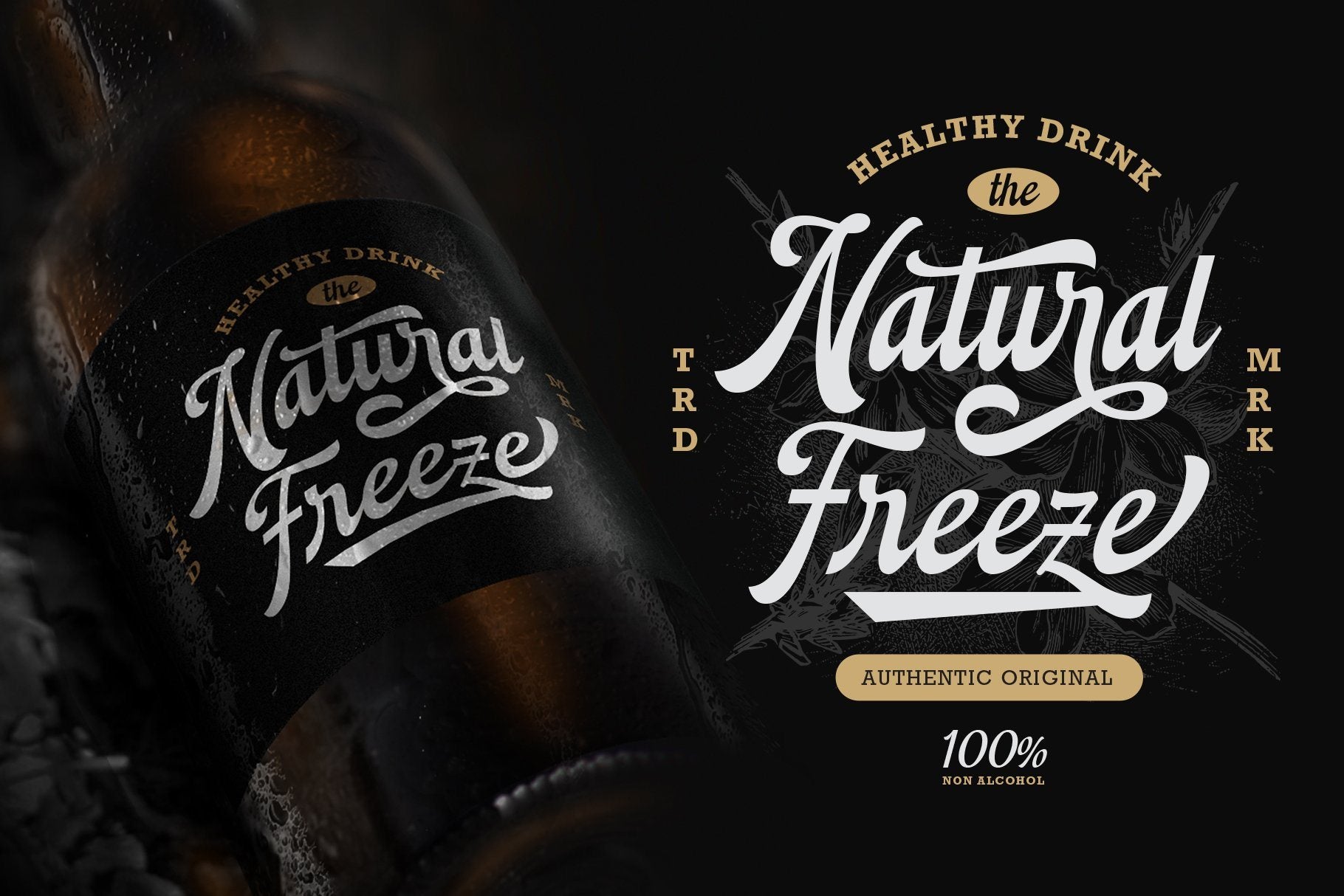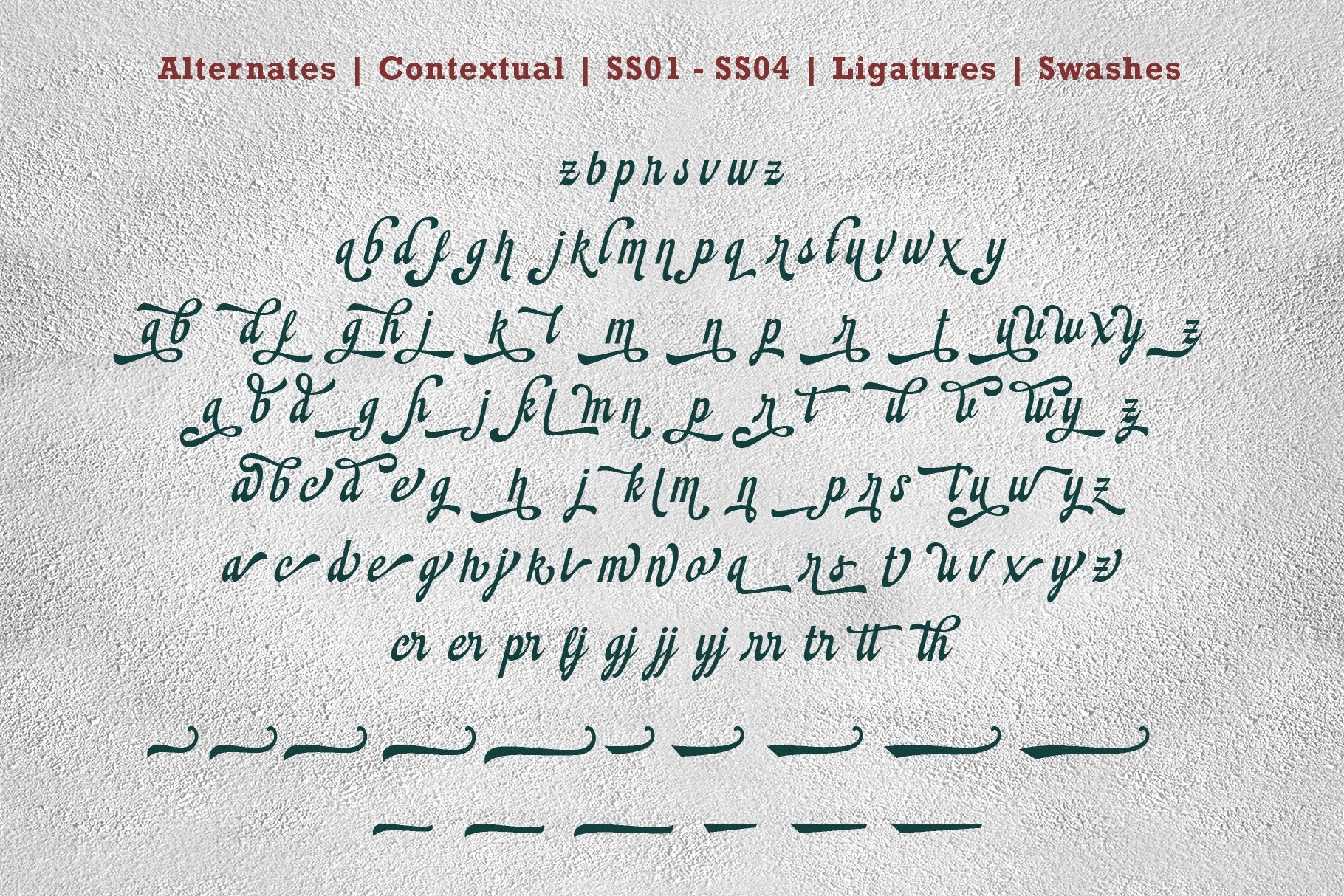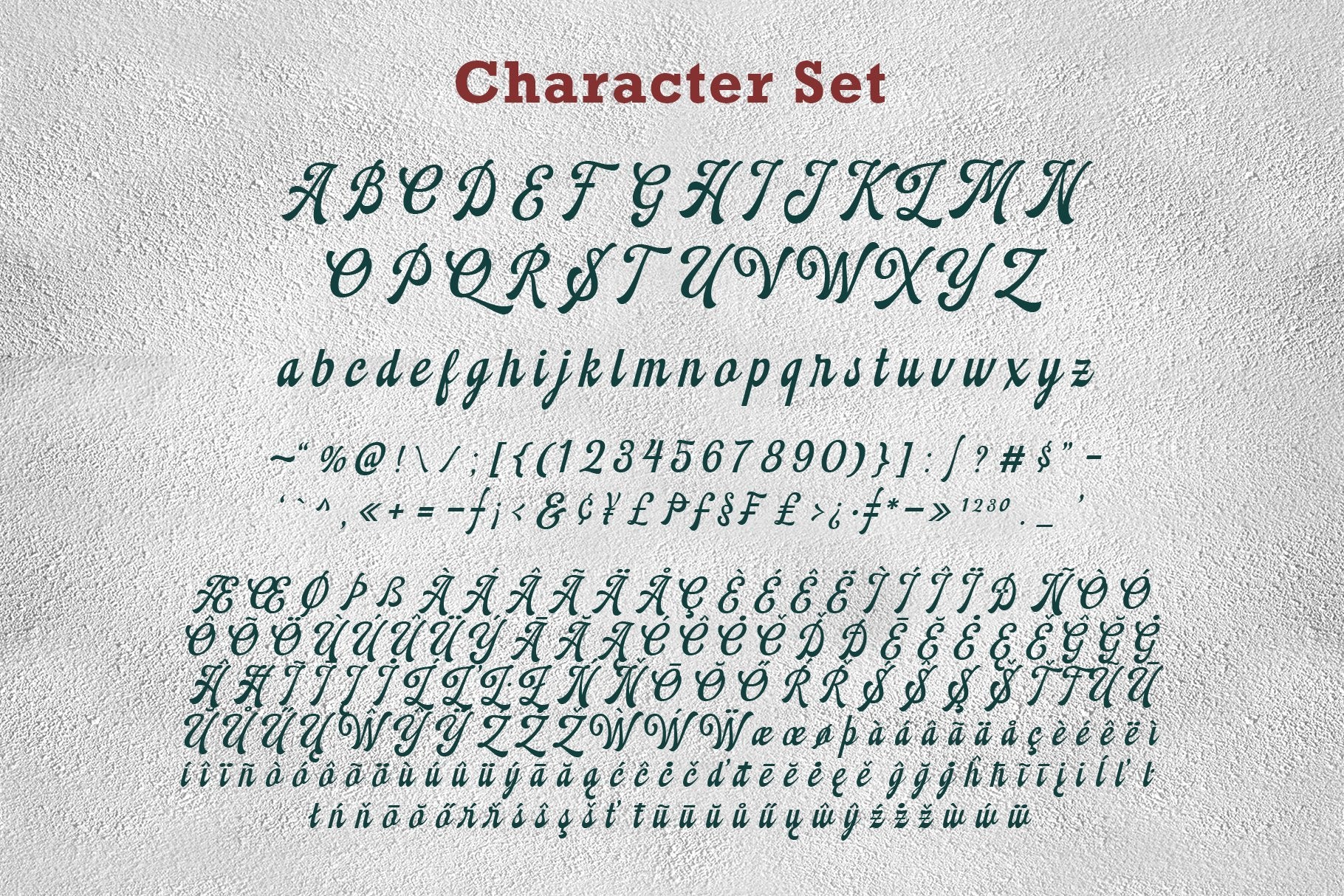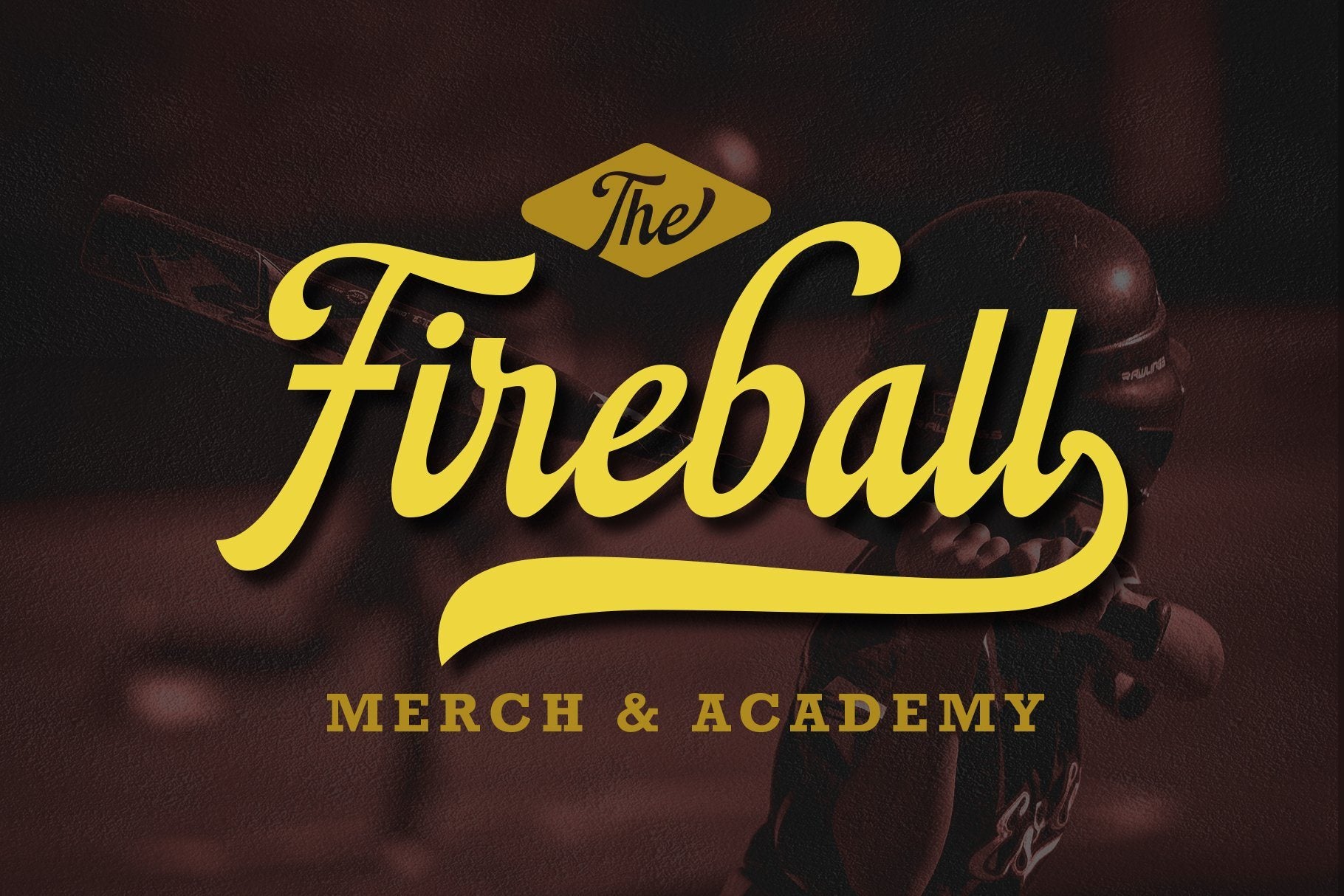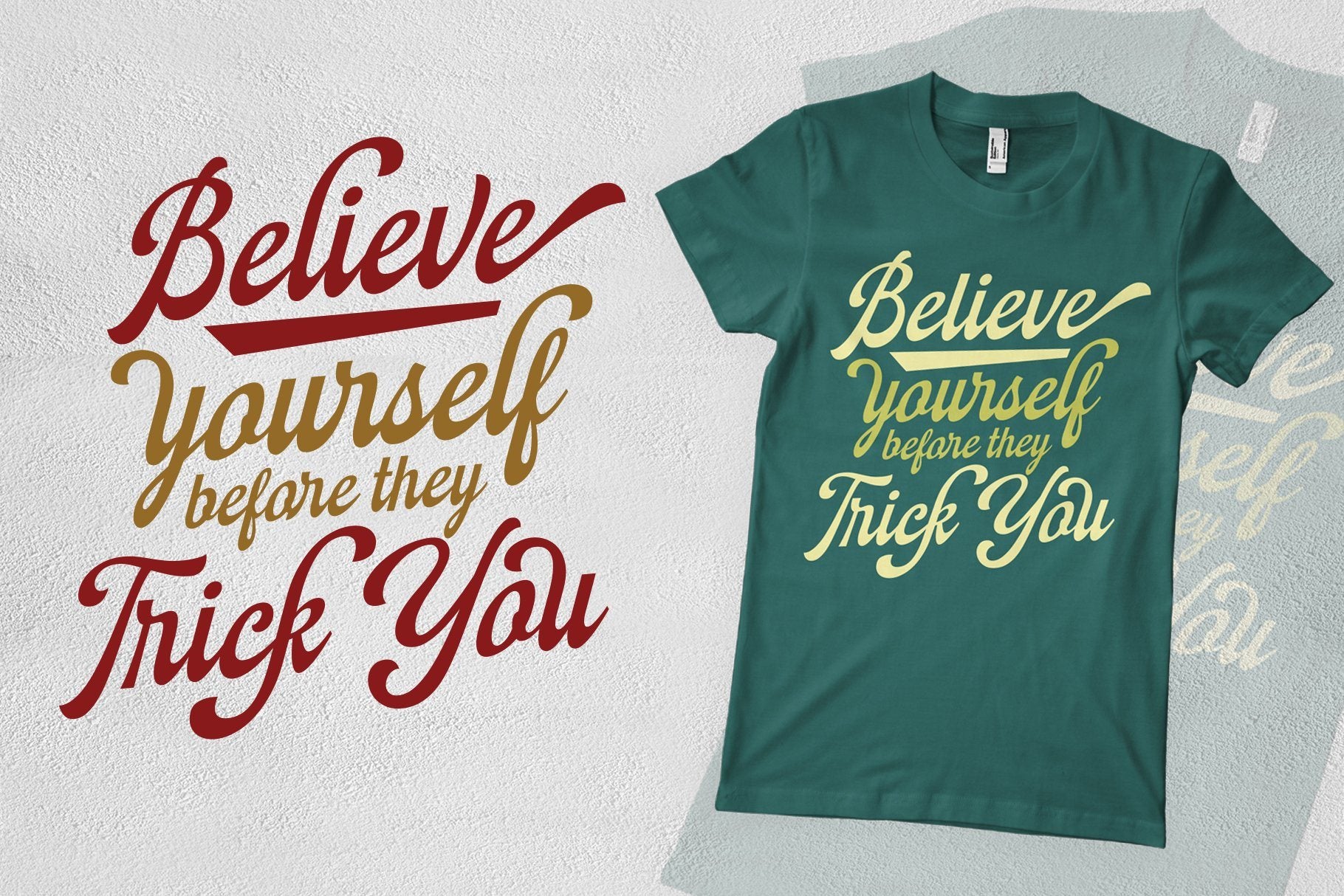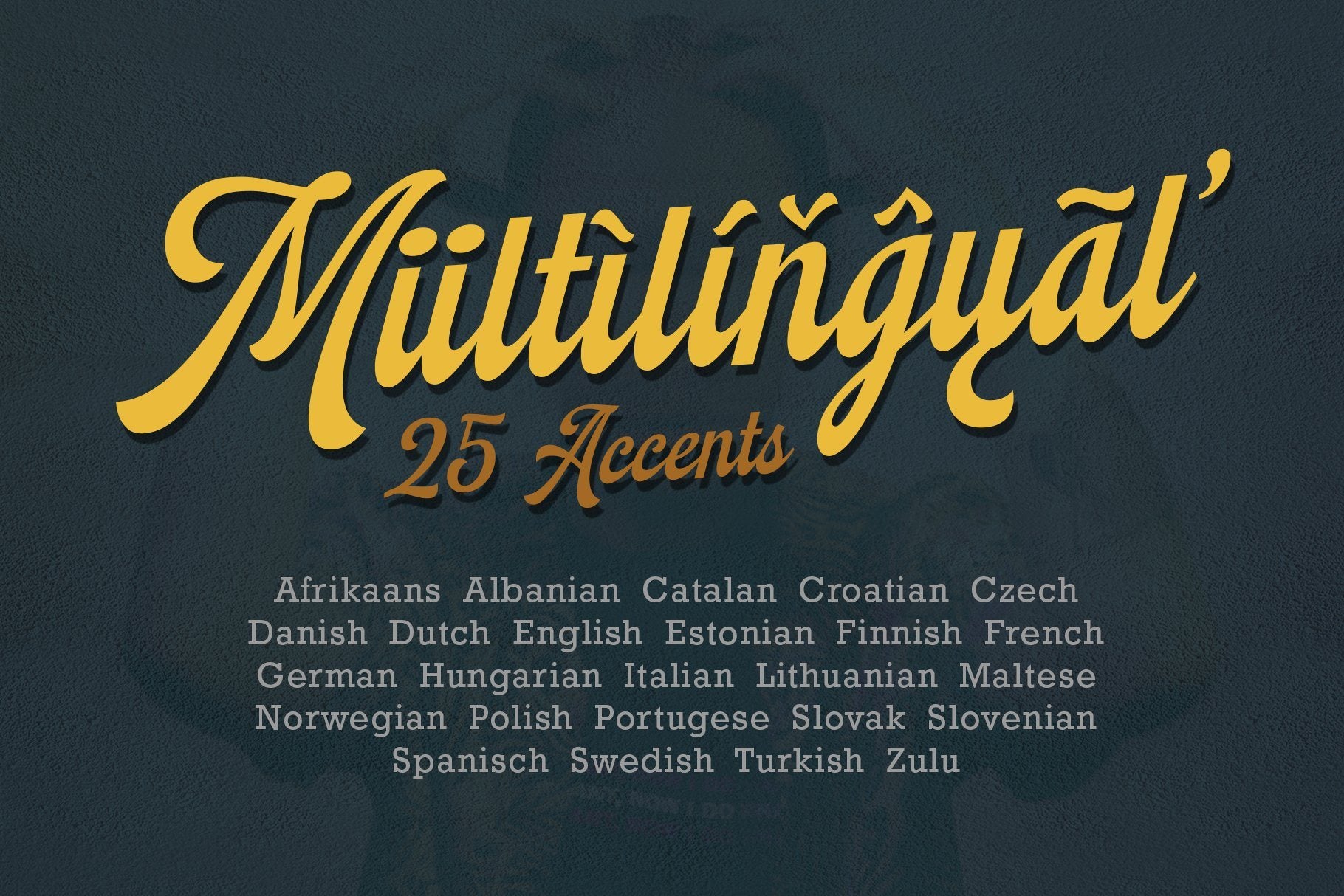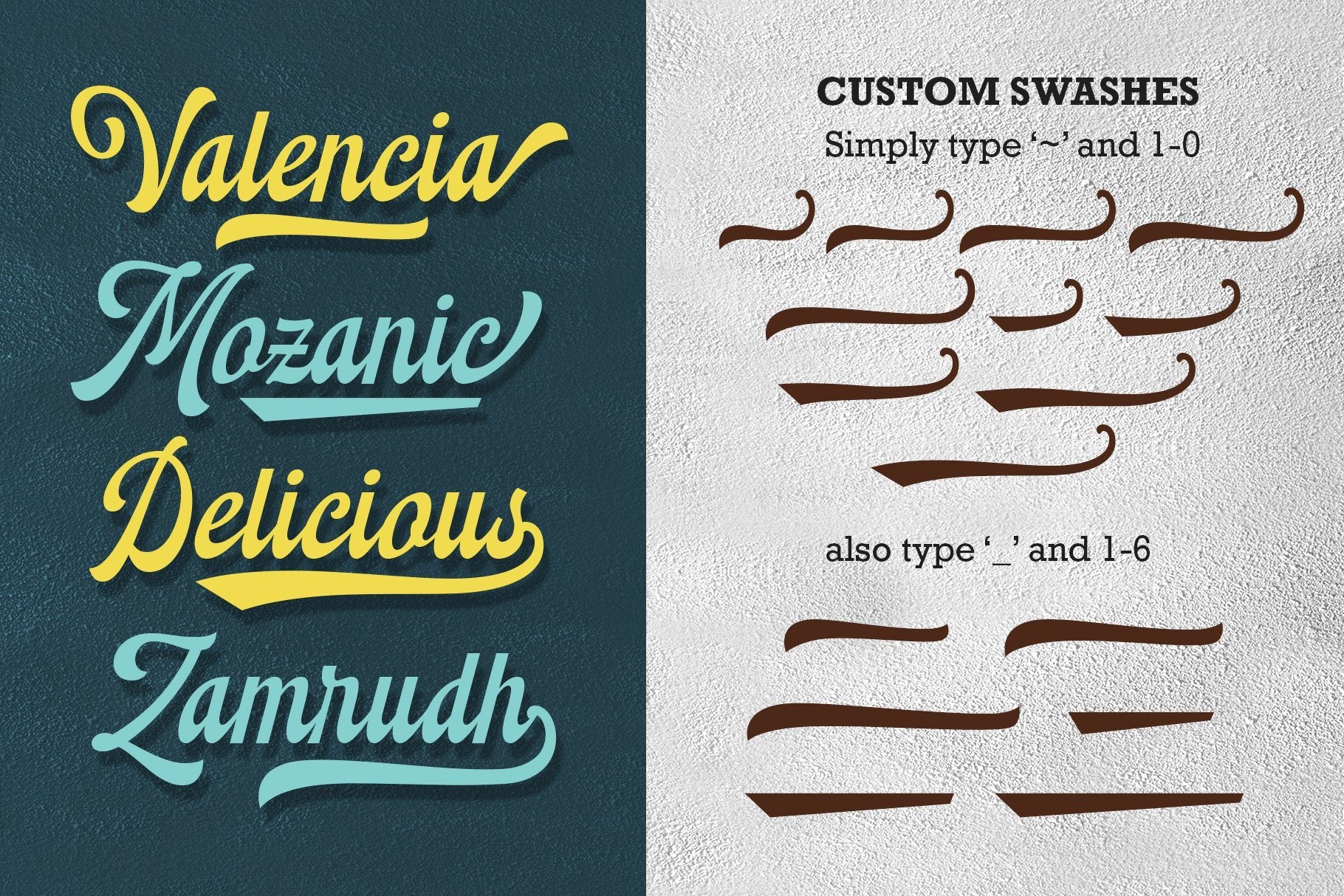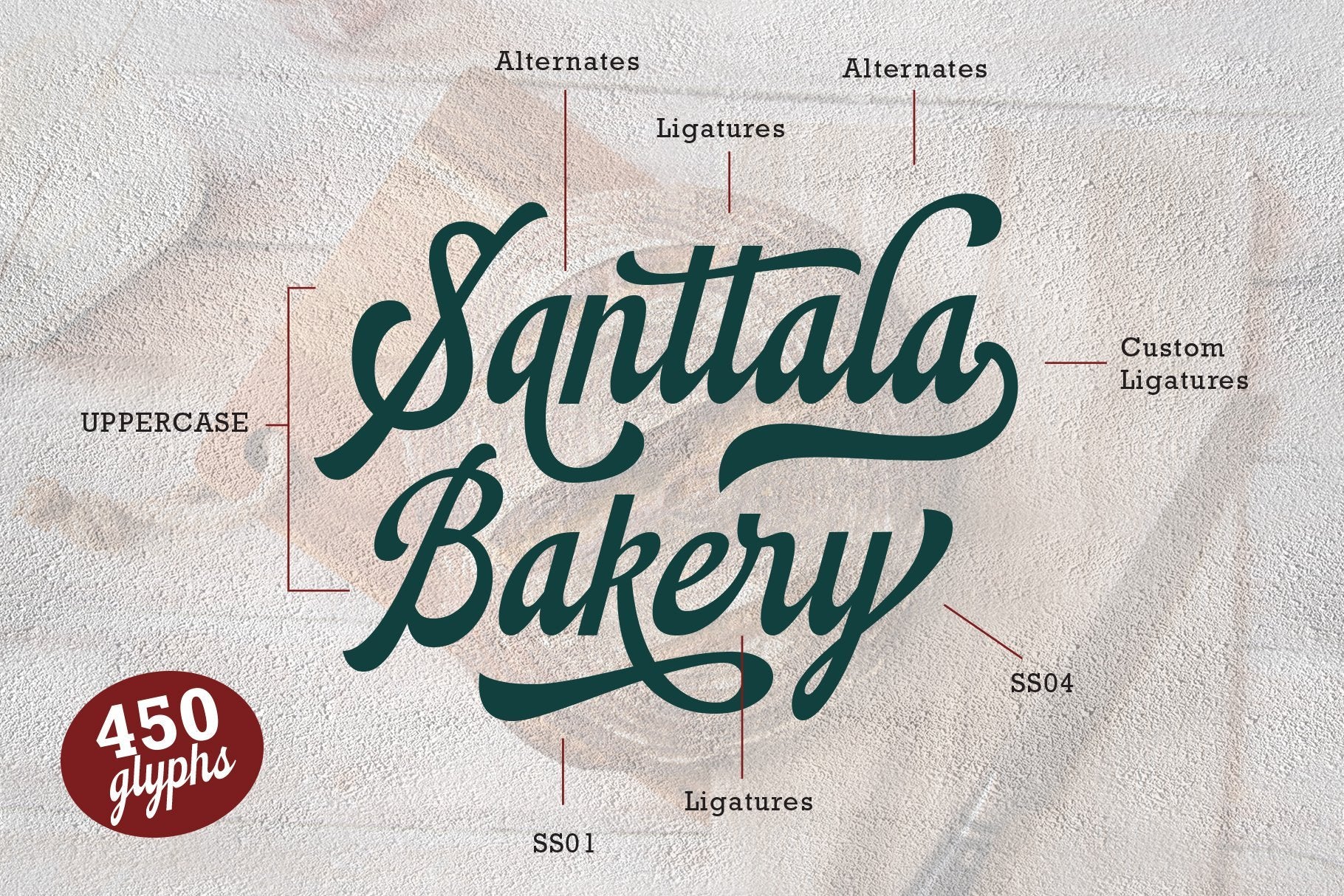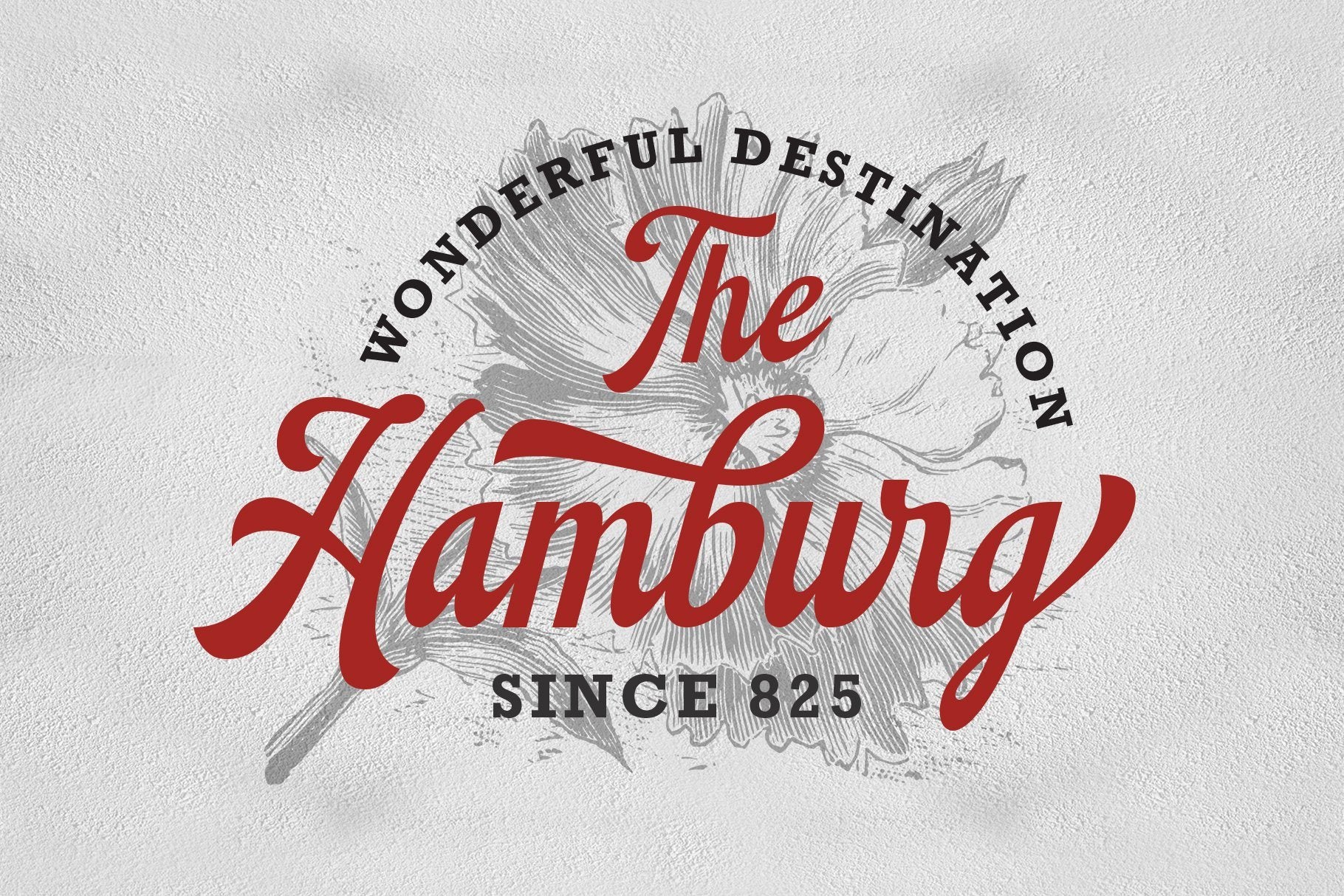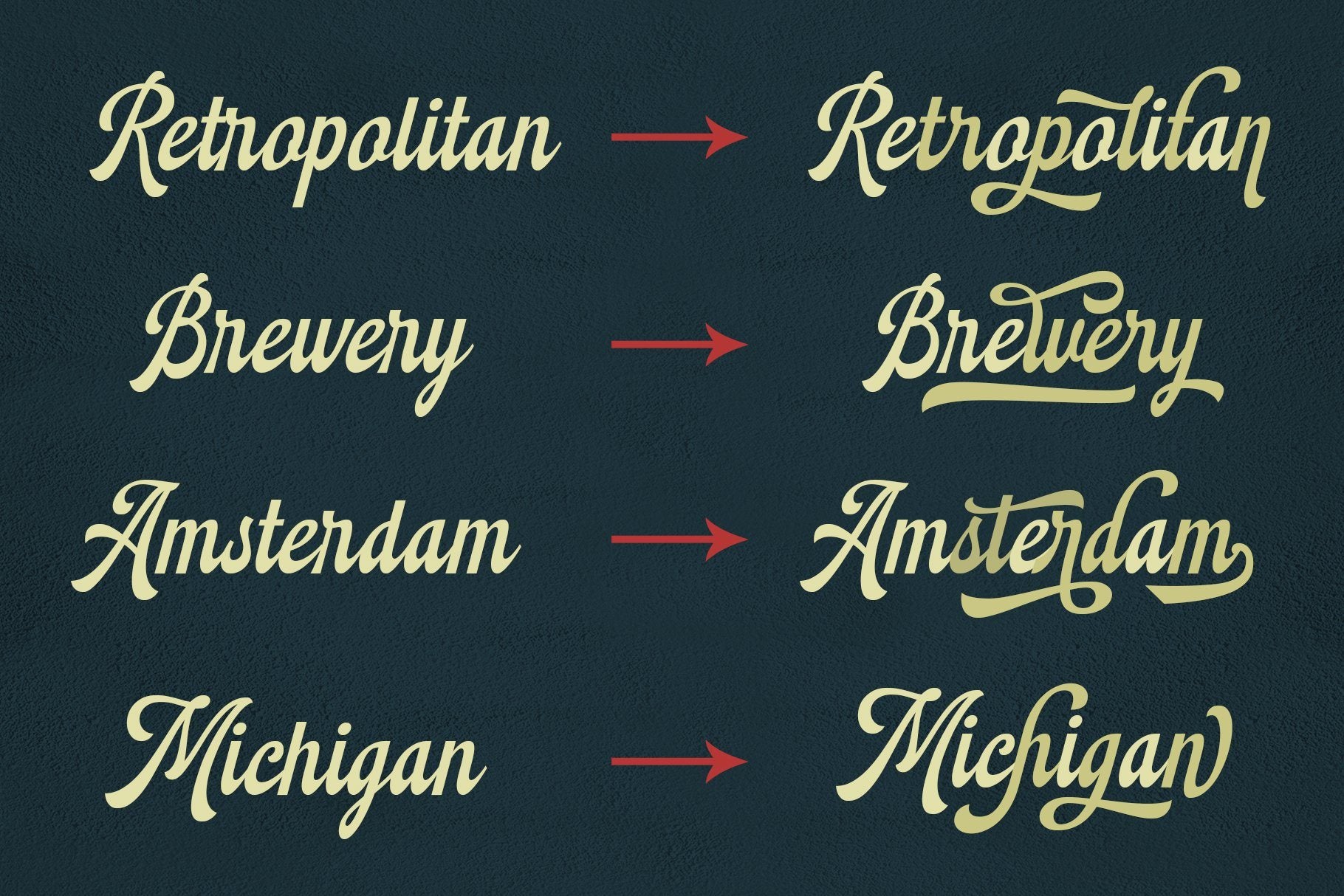
Montheim Script
About Montheim Script
Introducing Montheim, a vintage script font with medium weight. Inspired by modern retro movement and brush calligraphy. Montheim has many variations of alternates characters that you can mix and match, also with custom swashes (ligature) in the middle text and end swashes. Montheim complete with stylistic set gives more options to the layout that you can create a beautiful design with Montheim. Looks good in layout, vertical, or horizontal. perfect choice for poster, logo, logotype, insignia, storefront, t-shirt design, label, flags, magazine, and other vintage design needs. TTF & OTF format in Zip file containing: Uppercase Lowercase Numbers Symbols Contextual Alternates Stylistic Alternates Custom swash Ligatures Stylistic set 01 – 04 Hope you like it and have a nice day!